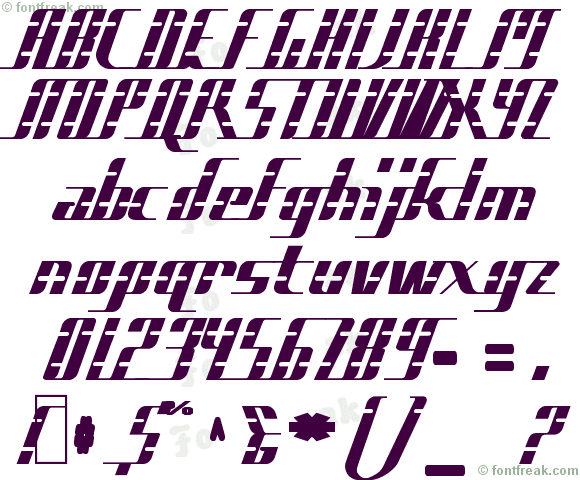
Sad Films
About Sad Films
Sad Films by Ray Larabie is a distinctive display font that captures a unique blend of nostalgia and emotion. Released in 1997, this typeface stands out with its italicized, slanted letters that evoke a sense of movement and storytelling, making it particularly fitting for themes related to film and narrative. The strokes have a moderate weight with an elegant contrast, giving the text a dynamic yet readable quality. The letterforms are spaced closely together, which enhances the visual flow and adds to the font's dramatic flair. Decorative elements include sharp angles and flowing curves that contribute to its cinematic appeal.
This font is particularly well-suited for a variety of creative applications. It's ideal for movie posters, where the emotional weight of the title can draw viewers in. Additionally, designers might find it perfect for album covers, especially for genres that explore melancholy themes. Wedding invitations can also benefit from the font's romantic yet somber aesthetic, making it a choice for couples who want to convey deep emotions on their special day. Furthermore, content creators can use the Sad Films font in social media graphics or video thumbnails to evoke a particular mood or narrative style.
What sets the Sad Films font apart is its ability to convey complex emotions through its design. Its unique style captures the essence of storytelling, making it a compelling choice for anyone looking to add a touch of drama to their work. For those interested, a Sad Films font free download is readily available, enabling users to incorporate this striking typeface into their projects effortlessly.